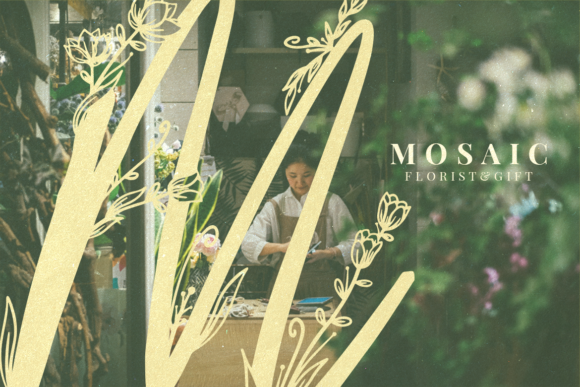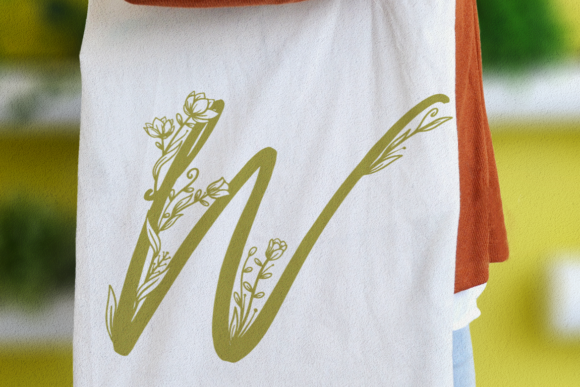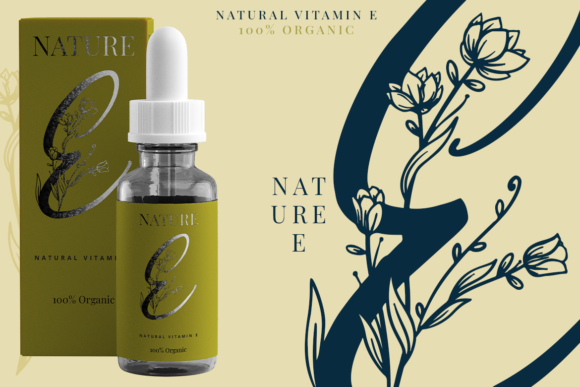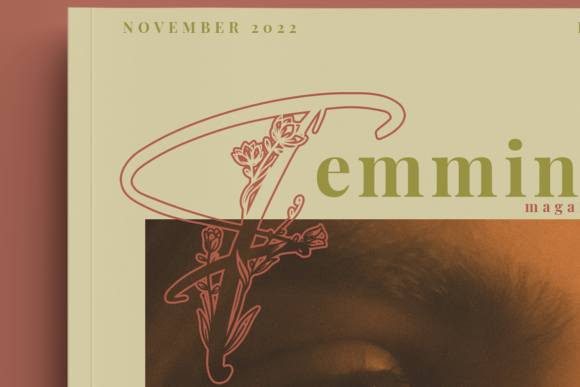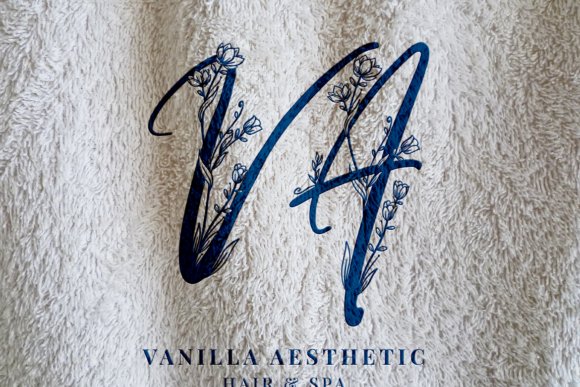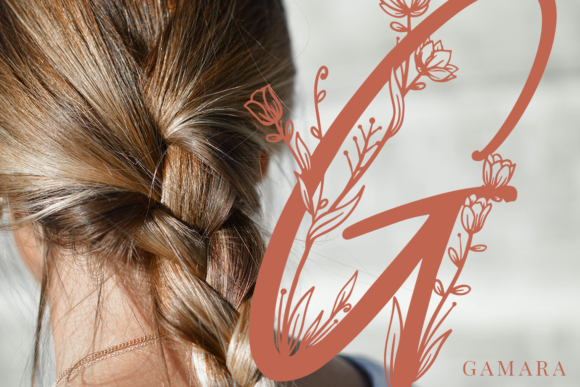
Unlock the Magic of Personalized Style with Growself Monogram Font
Have you ever stared at a blank page, surrounded by blank cards and empty design boards, searching for the perfect spark to ignite your creativity? That’s exactly where I was when I stumbled upon the Growself Monogram Font – a beautiful decorative font that instantly changed the game for me.
This stunning font is perfect for adding a personal touch to your designs, whether it’s a wedding invitation, a beautiful piece of stationery art, an eye-catching social media post, or a cute greeting card. The Growself Monogram Font is a valuable tool for designers who want to add a unique and elegant feel to their work. Its versatility and aesthetic appeal make it a must-have in every designer’s toolkit.
Growself Monogram Font Key Features
- Unique Monogram Design: The font features a distinctive monogram design that can be customized to fit individual needs, making it a versatile option for various branding and design projects.
- Character Set: The font includes a wide range of characters, including uppercase and lowercase letters, numbers, and punctuation marks, as well as special characters and symbols.
- Customization Options: The font allows for easy customization of the monogram design, enabling users to create unique and personalized logos or branding elements.
Designer Review: Growself Monogram Font
Overall, I think the Growself Monogram Font is a beautiful and unique addition to any design project. It’s perfect for adding a personal touch to your branding or creating custom stationery. ✨
- ✨ Elegant and sophisticated design: The font has a classic, monogram feel that exudes luxury and refinement.
- ✨ Versatility: Growself Monogram Font can be used in a variety of contexts, from weddings to corporate branding.
- ✨ High-quality rendering: The font is well-designed and renders beautifully in a range of sizes and resolutions.
- ⚠️ Limited language support: Growself Monogram Font may not support non-Latin languages or scripts.
- ⚠️ Limited font weight options: The font only comes in a few weights, which may limit its use in certain design applications.
- ⚠️ May not be suitable for body text: The font’s ornate design may make it difficult to read in large blocks of text.
Overall, I think the Growself Monogram Font is a great choice for designers looking to add a touch of elegance and sophistication to their projects. With its beautiful design and versatility, it’s a great addition to any design toolkit.
For the most out of Growself Monogram Font, use it for branding, logos, and invitations.
Use it to add a personal touch to your designs and make them stand out.